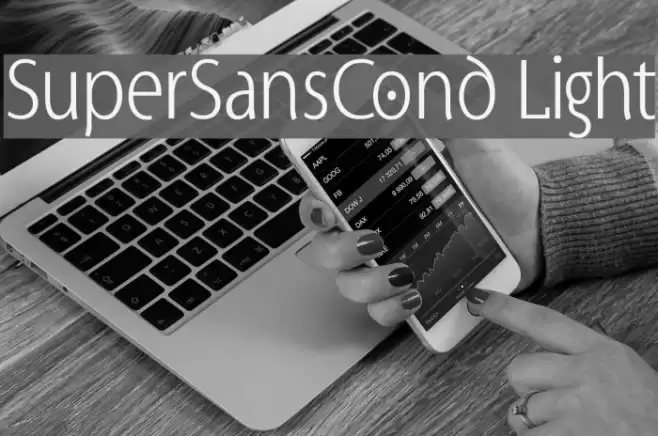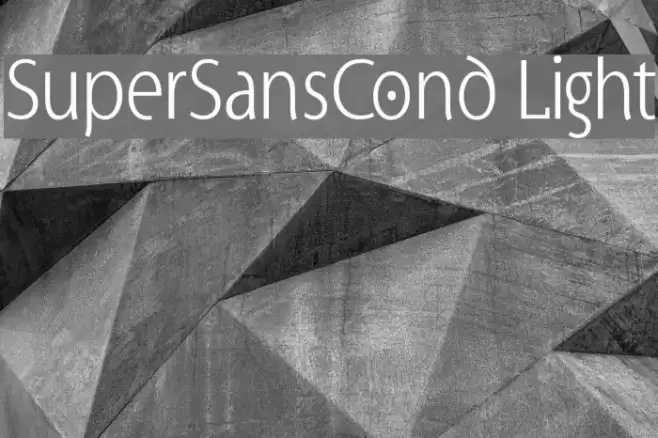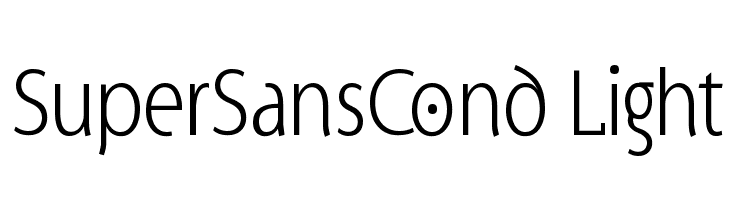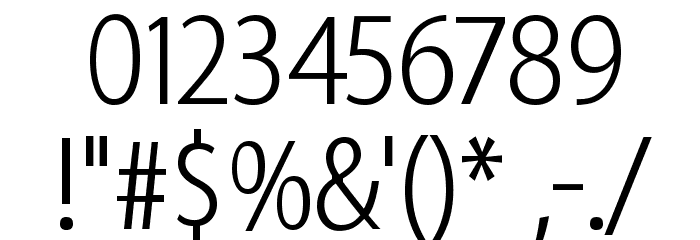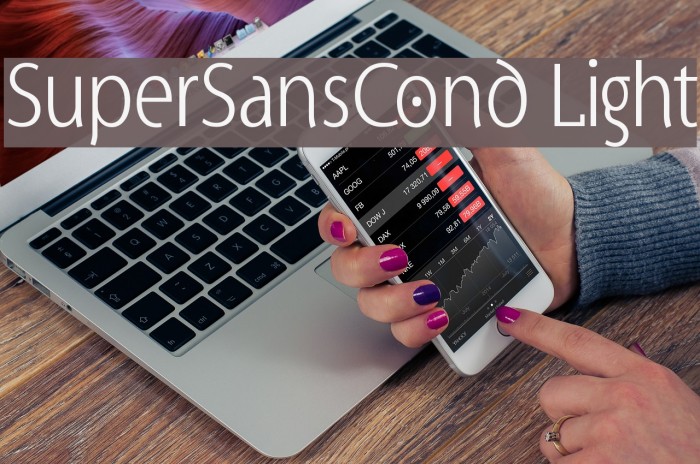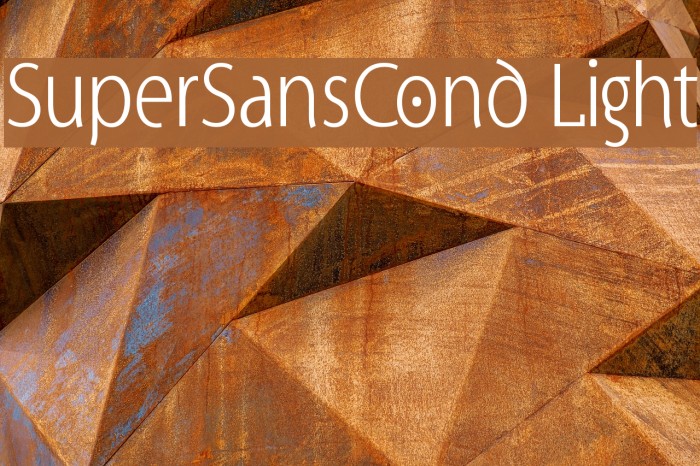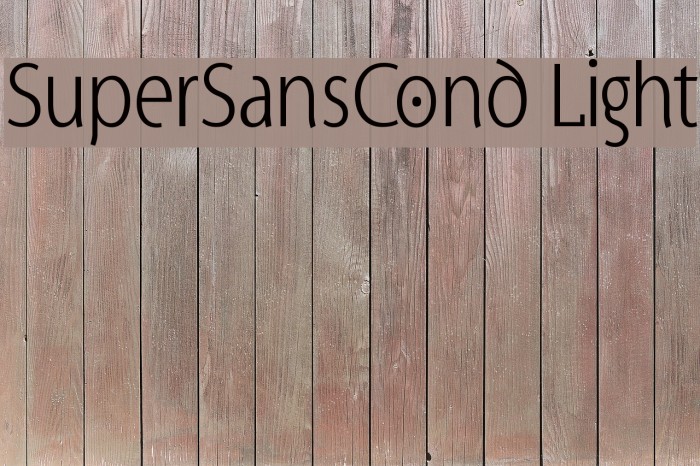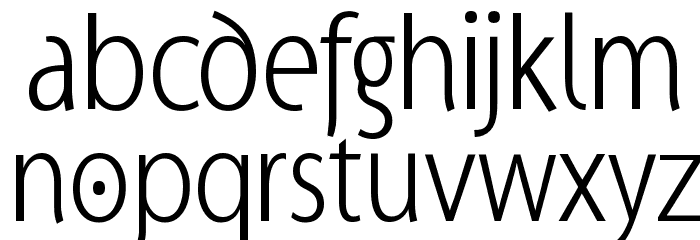
SuperSansCond Light Font
SuperSansCond Light Description
This font features a clean and modern sans-serif design with a light weight, making it ideal for contemporary projects. The characters are well-defined with a slightly condensed width, providing a sleek and efficient use of space. The font maintains a consistent stroke width throughout, contributing to its low contrast appearance. Its geometric shapes and open counters enhance readability, while the unique circular accents on certain letters add a distinctive touch. The spacing between characters is normal, ensuring clarity and legibility in various applications.
A modern, light sans-serif font with geometric shapes and low contrast from Uncategorized fonts.
- Proposed Projects: Ideal for branding, web design, and editorial layouts where a modern and clean aesthetic is desired.